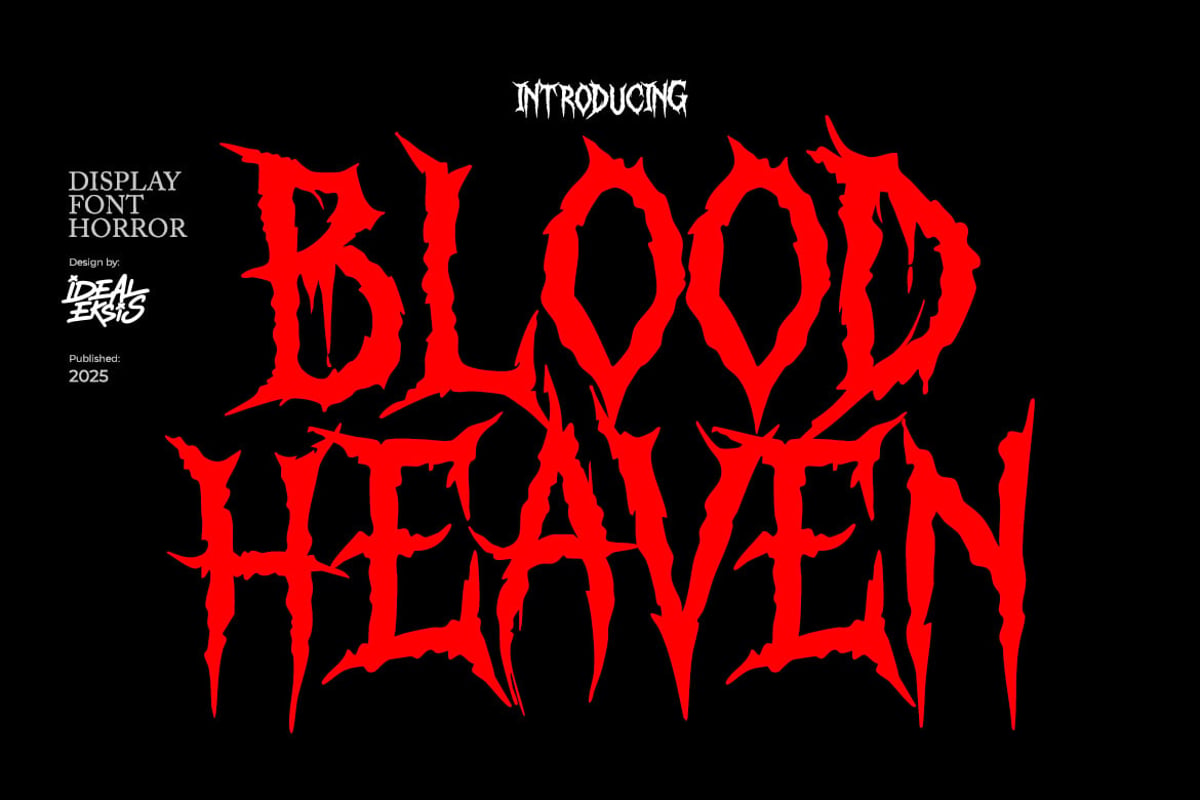
Blood Heaven - Horror Font
Transform your designs with Blood Heaven, the ultimate horror display font that delivers spine-chilling terror in every letter.
This sharp typeface features menacing jagged edges and a sinister style inspired by classic horror movie titles. Blood Heaven creates an intense and terrifying atmosphere that's perfect for horror posters, Halloween projects, dark branding concepts, metal band logos, and any design that demands a chilling impact.
- ALL CAPS character set